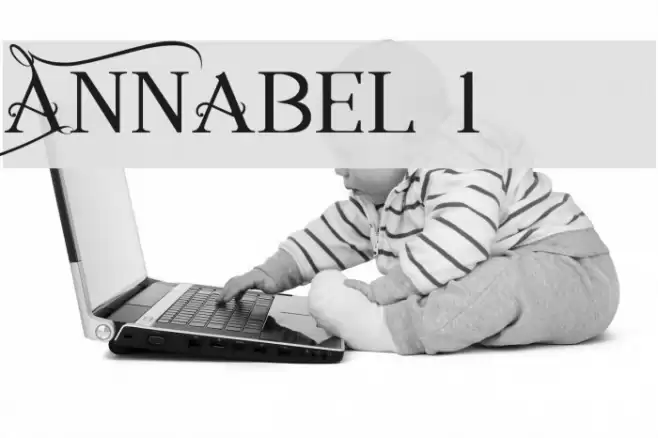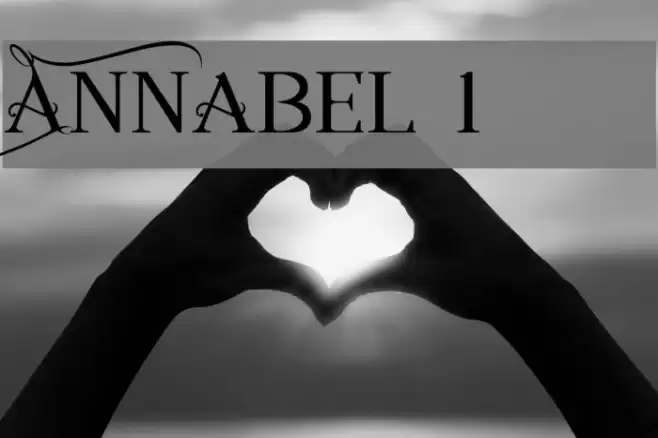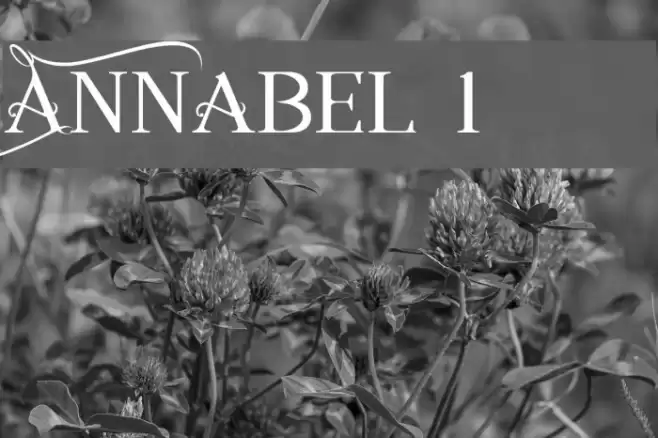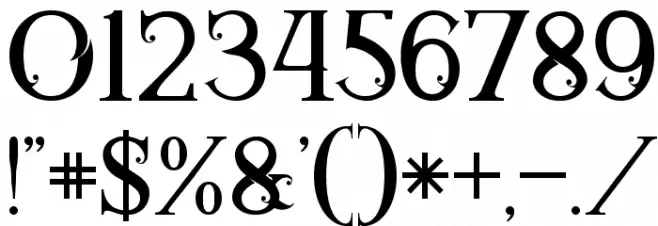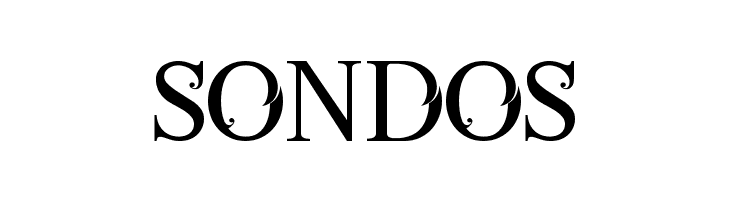
Annabel 1 Font
Annabel 1 Description
This font exhibits a classic serif style with elegant, flowing lines and intricate detailing. The uppercase letters are adorned with decorative swashes, adding a touch of sophistication and flair. The numerals and special characters maintain this ornate style, making them stand out with their unique embellishments. The overall appearance is both traditional and artistic, suitable for projects that require a touch of elegance and historical charm. The font's design is consistent across all characters, ensuring a cohesive look.
A classic serif font with decorative swashes and intricate detailing from Uncategorized fonts.
- Proposed Projects: Ideal for wedding invitations, luxury branding, historical publications, and decorative headlines.
- Overall Style: Classic
- Use Case: Headlines, Logos, Decorative text